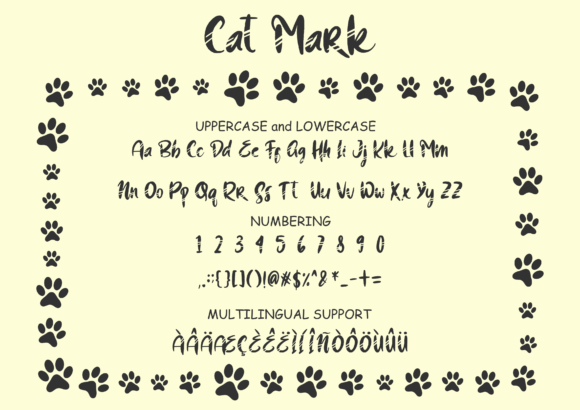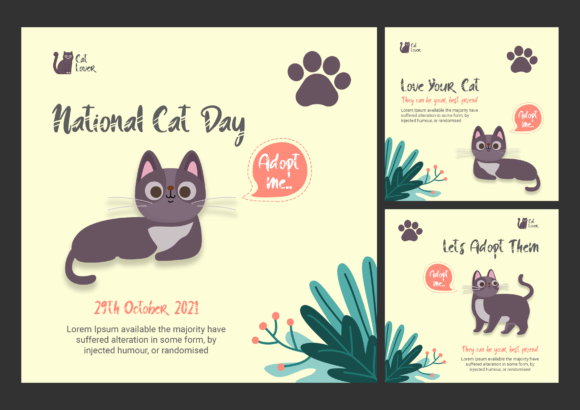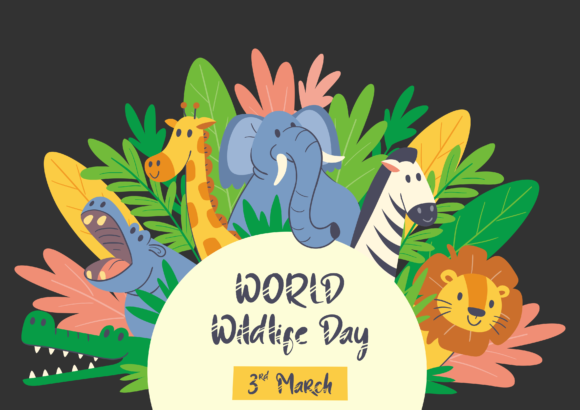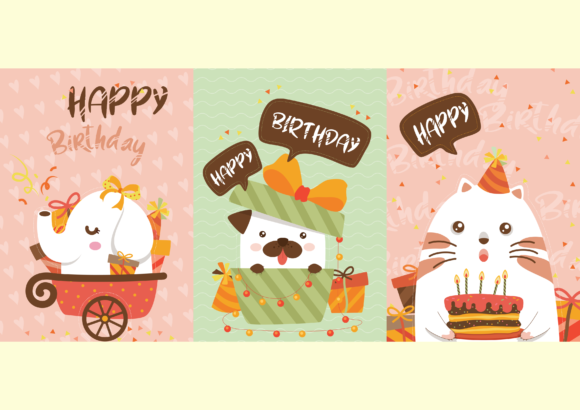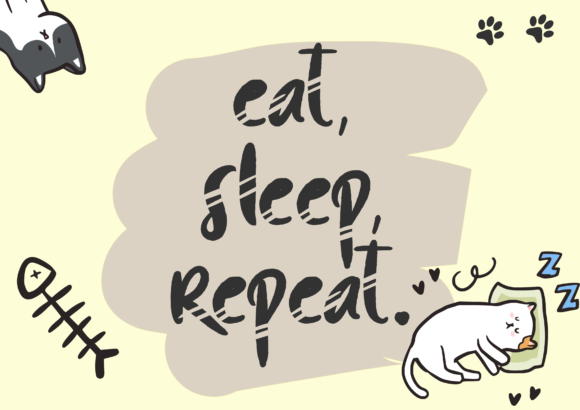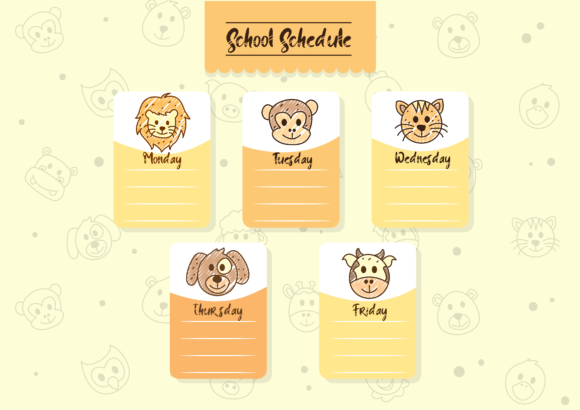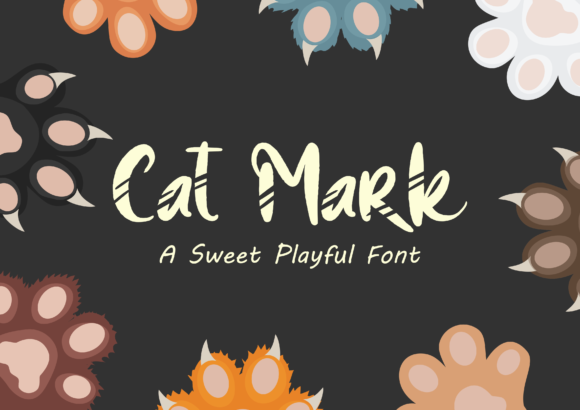
Introducing Cat Mark Font: The Playful Display Font to Elevate Your Designs
Are you tired of using the same old fonts in your designs? Look no further than Cat Mark Font, a lovely display font that is sure to add a touch of whimsy and charm to your creative projects. With its charming, playful characters that seem to dance along the baseline, Cat Mark Font is the perfect addition to your font collection.
What Makes Cat Mark Font So Special?
Cut Mark, as it’s also known, is a unique and eye-catching font that is sure to make your designs stand out. Its playful characters are carefully crafted to add a touch of personality to your projects, making it perfect for designers and crafters who want to add a bit of fun and whimsy to their work.
Whether you’re working on a branding project, creating a social media graphic, or designing a craft project, Cat Mark Font is the perfect choice. Its versatility and charm make it suitable for a wide range of applications, from formal to informal, and it’s sure to add a touch of personality to any design.
Key Features of Cat Mark Font
• Playful Characters: Cat Mark Font features charming, playful characters that seem to dance along the baseline, adding a touch of whimsy and fun to your designs.
• Display Font: This font is specifically designed as a display font, making it perfect for headlines, titles, and other attention-grabbing elements.
• Versatile: Cat Mark Font is versatile and can be used for a wide range of applications, from formal to informal, making it a great addition to any font collection.
• Easy to Read: Despite its playful nature, Cat Mark Font is easy to read, making it perfect for designs where you want to make a statement without sacrificing legibility.
How to Use Cat Mark Font in Your Designs
• Pair it with a neutral font: Pair Cat Mark Font with a neutral font to create a striking contrast and make your design stand out.
• Use it for headlines: Cat Mark Font is perfect for headlines and titles, where its playful nature can really shine.
• Add it to your branding: If you’re looking to add a bit of personality to your brand, consider using Cat Mark Font in your branding materials, such as business cards, brochures, and website headers.
• Experiment with colors: Cat Mark Font looks great in a variety of colors, so don’t be afraid to experiment and find the perfect color to match your design.
Why Designers and Crafters Love Cat Mark Font
Designers and crafters love Cat Mark Font for its unique and playful style, which adds a touch of personality to any design. Here are a few reasons why:
• Unique style: Cat Mark Font has a unique style that sets it apart from other fonts, making it perfect for designers and crafters who want to add a bit of whimsy to their work.
• Easy to use: Cat Mark Font is easy to use and can be easily integrated into a wide range of design applications.
• Versatile: Cat Mark Font is versatile and can be used for a wide range of applications, from formal to informal.
In conclusion, Cat Mark Font is a lovely display font that is sure to add a touch of whimsy and charm to your designs. With its playful characters, versatility, and ease of use, it’s perfect for designers and crafters who want to add a bit of personality to their work. So why not give it a try and see how it can elevate your designs?